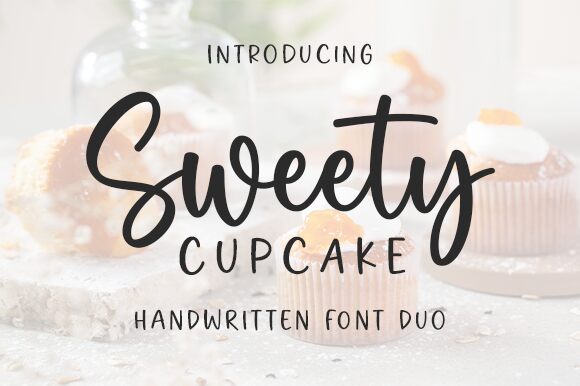
Cupcake, the adorable creation by Nirmala Creative, is a cute handwritten font that will add a touch of whimsy to your projects.
With its block letter style and all caps design, Cupcake is perfect for creating eye-catching titles and headlines that demand attention. Whether you're designing invitations for a children's birthday party or crafting playful signage for a trendy café, this delightful font will infuse your projects with charm and character.
Let Cupcake sprinkle sweetness into your designs and make them truly irresistible.